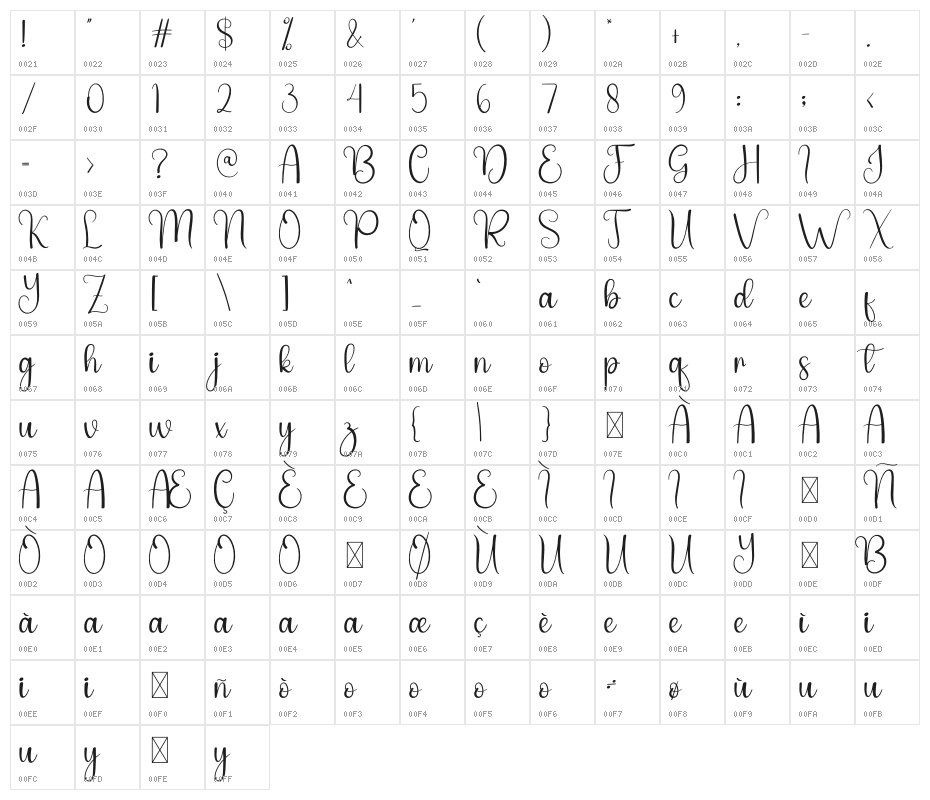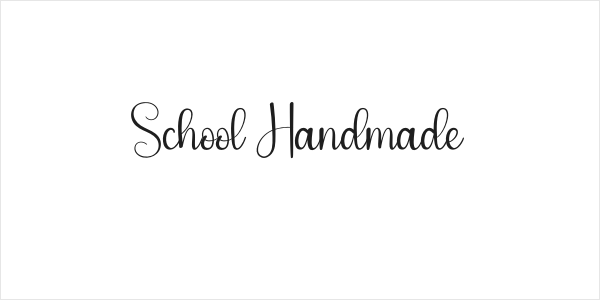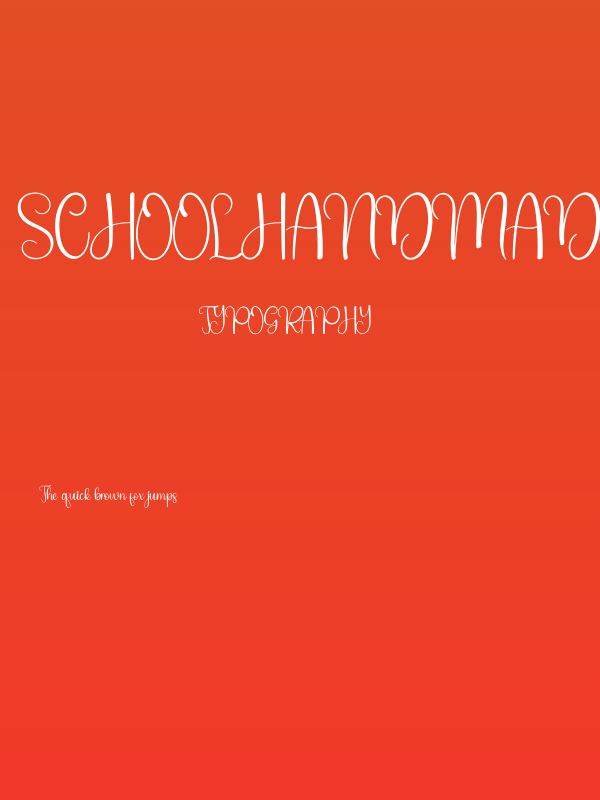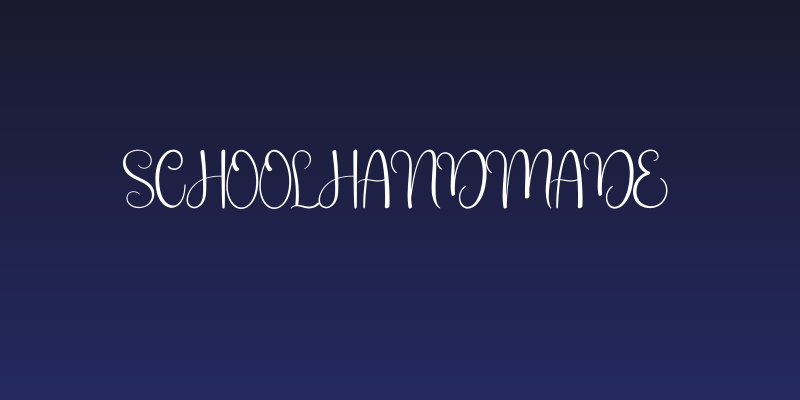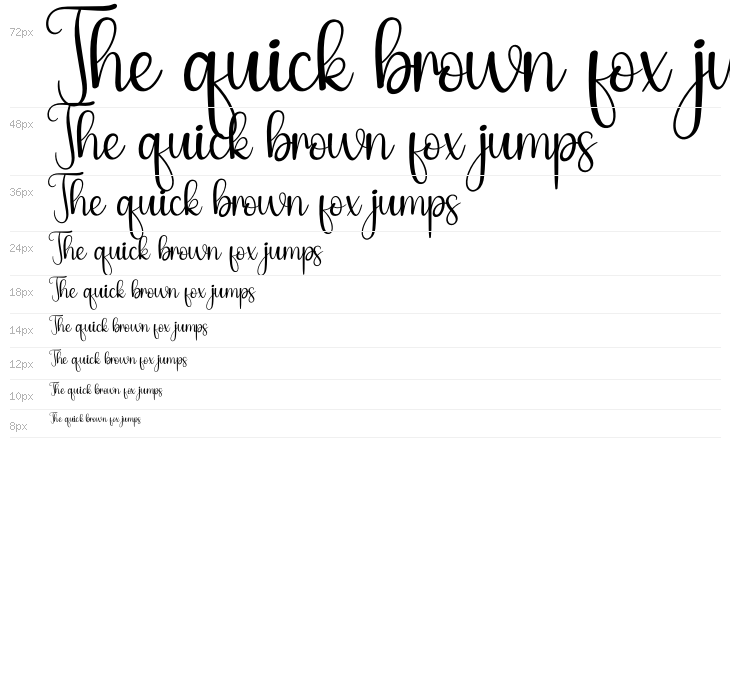
School Handmade Font
School Handmade Description
A playful, handwritten script font with tall, looping ascenders and descenders, featuring a casual and whimsical style. The strokes are monoline with slight variations, giving it a natural, hand-drawn appearance. Characters are well-spaced and legible, with a friendly and informal feel.
| Overall Style | Playful, Whimsical, Casual, Handwritten |
| Use Case | Invitations, Greeting cards, Children's materials, Informal headlines |
| Proposed Projects | Children's book covers, school projects, invitations, greeting cards, playful branding, educational materials. |